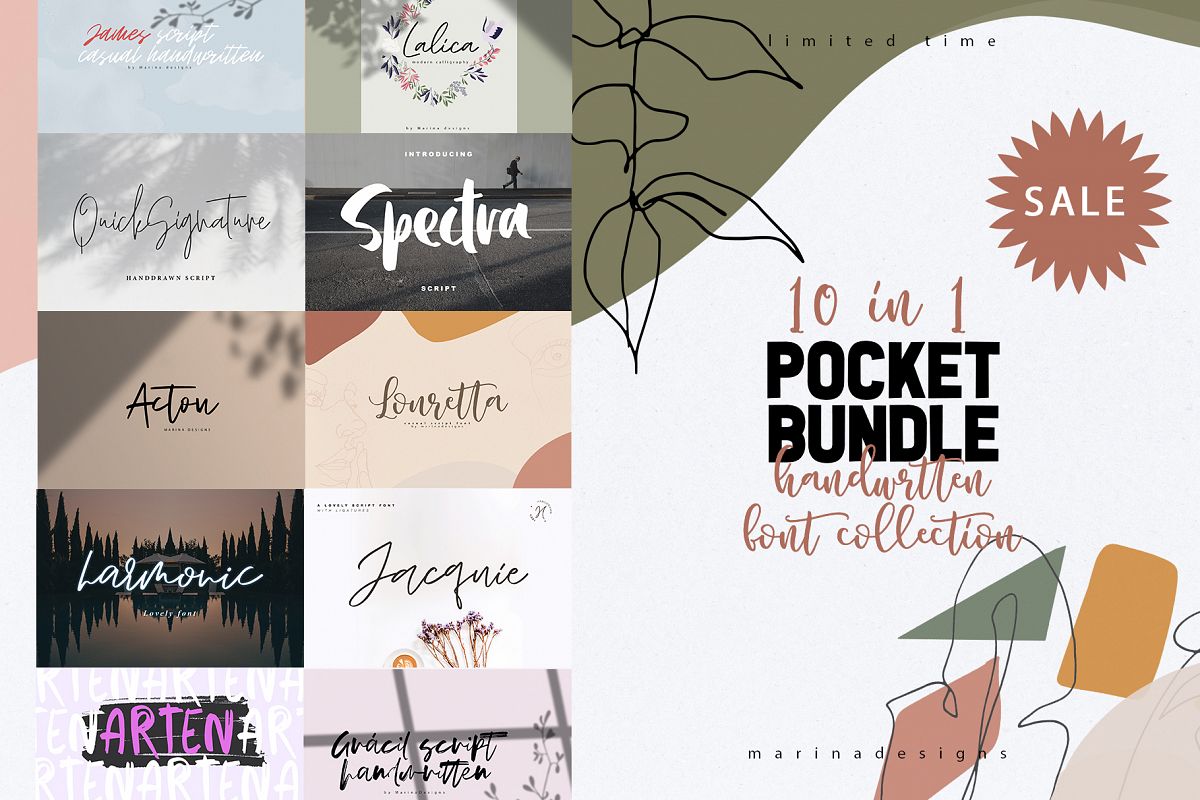
I would like to offer a wonderful selection of my fonts at a POCKET BUNDLE handwritten font collection!
I've handpicked a unique selection for this special bundle.
Inside you will find 10 fonts - all handwritten font collection!
Take a closer look at most of the fonts included below:
• Louretta
• James script
• Gracil script
• Lalica
• Arten
• Acton
• Jacquie
• Quick Signature
• Spectra
• Harmonic